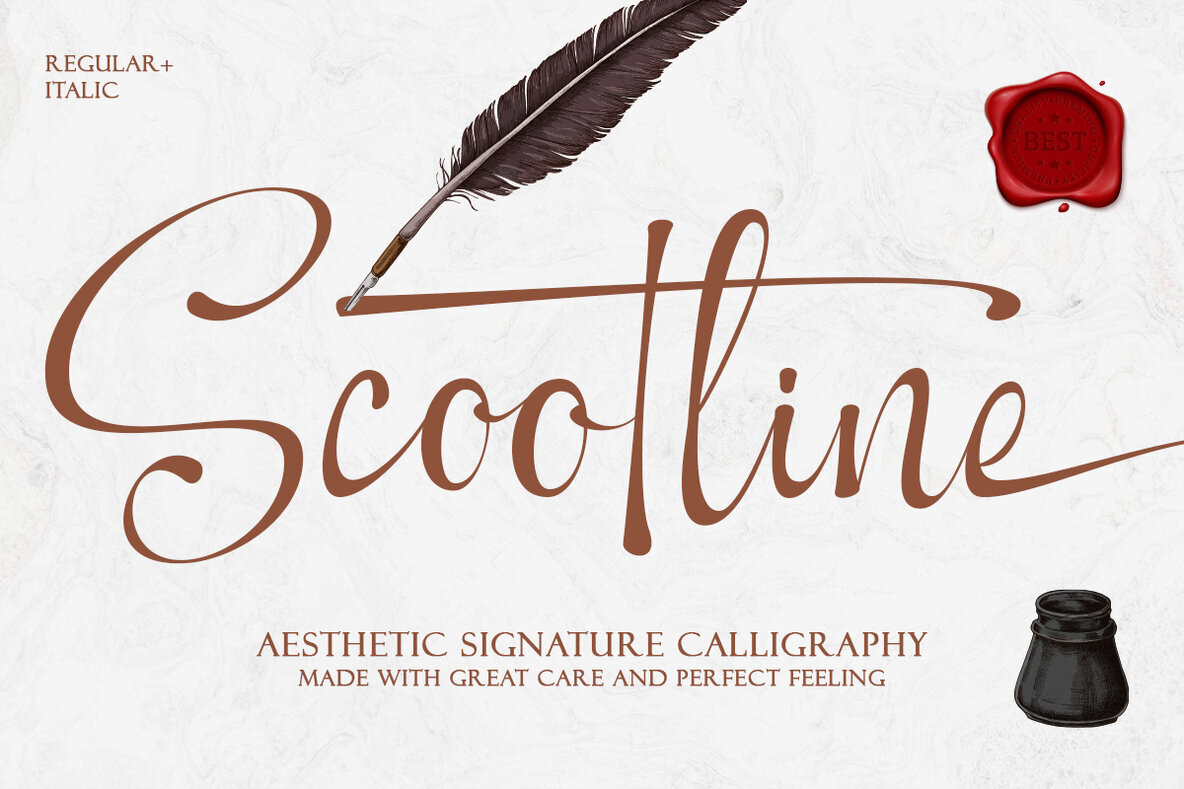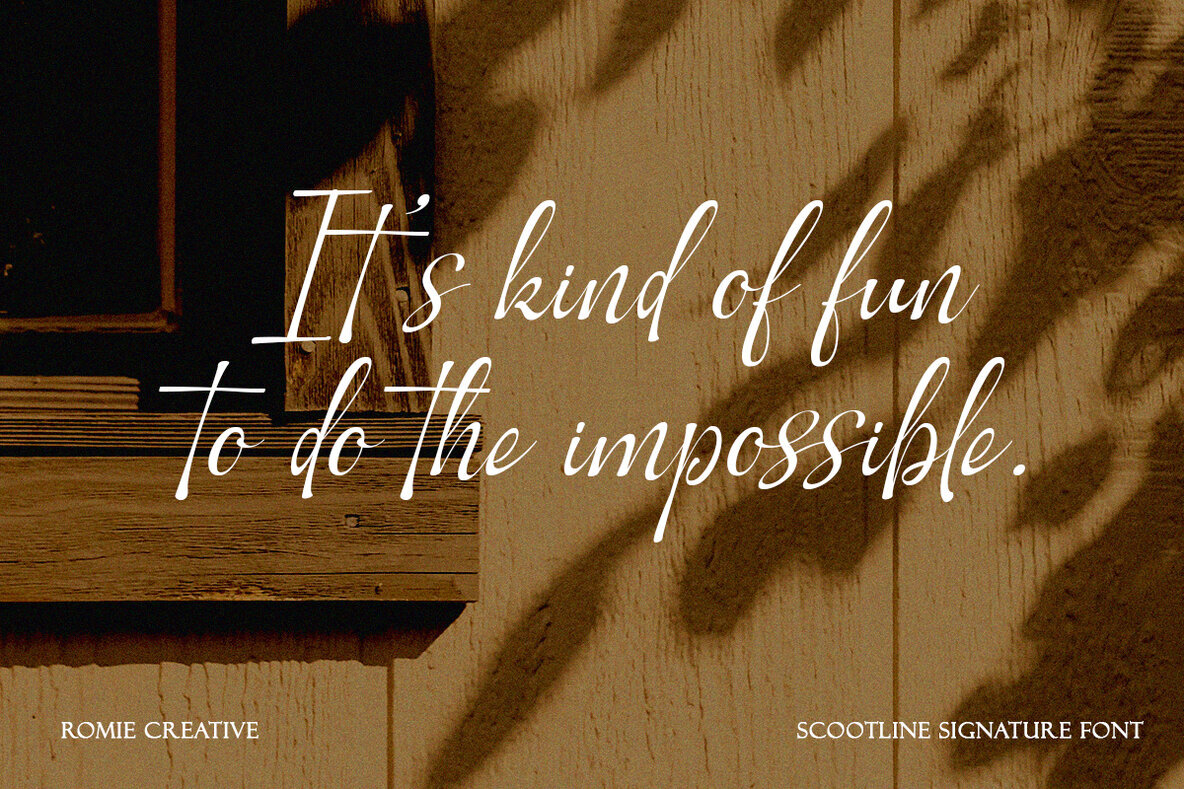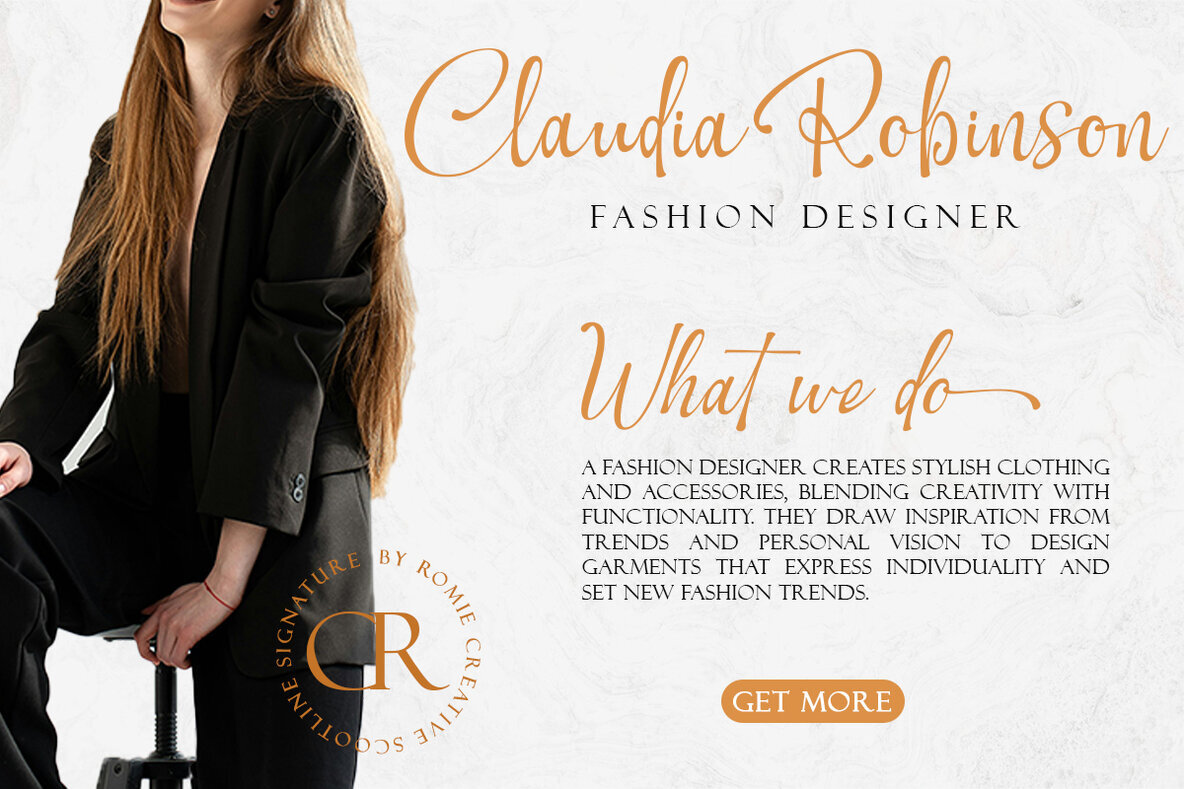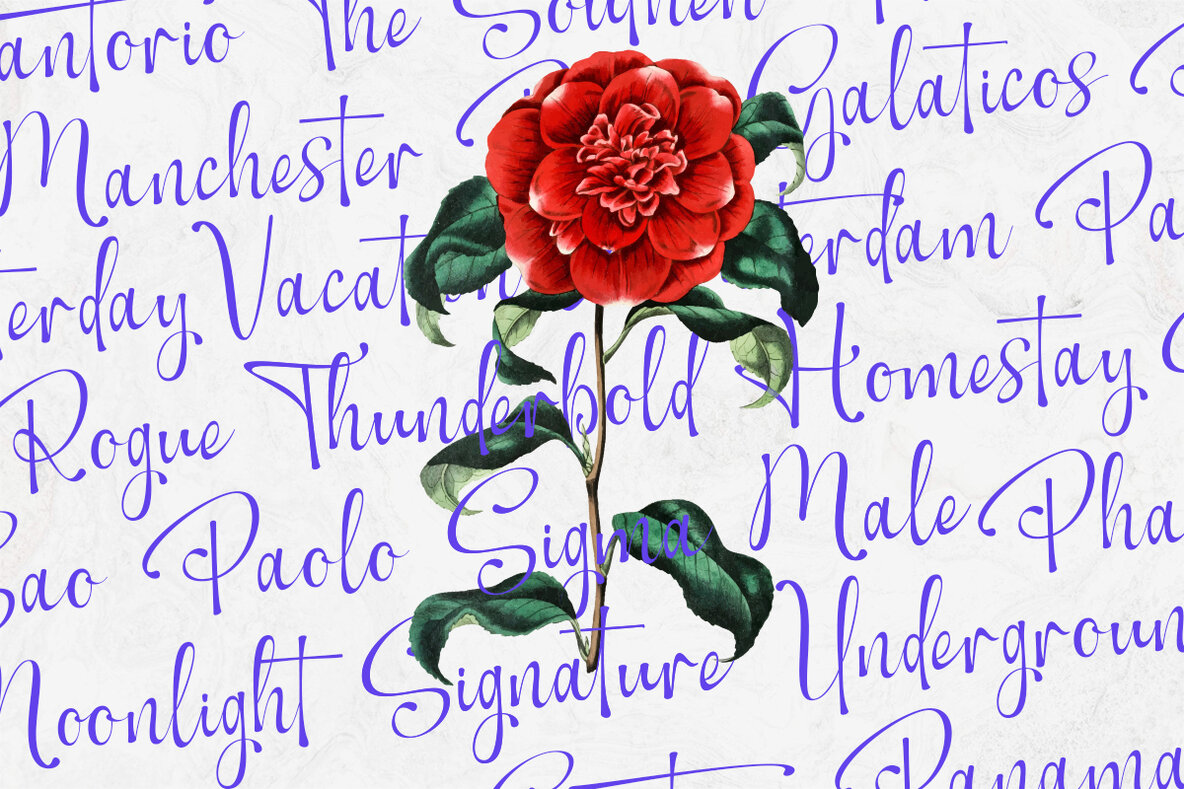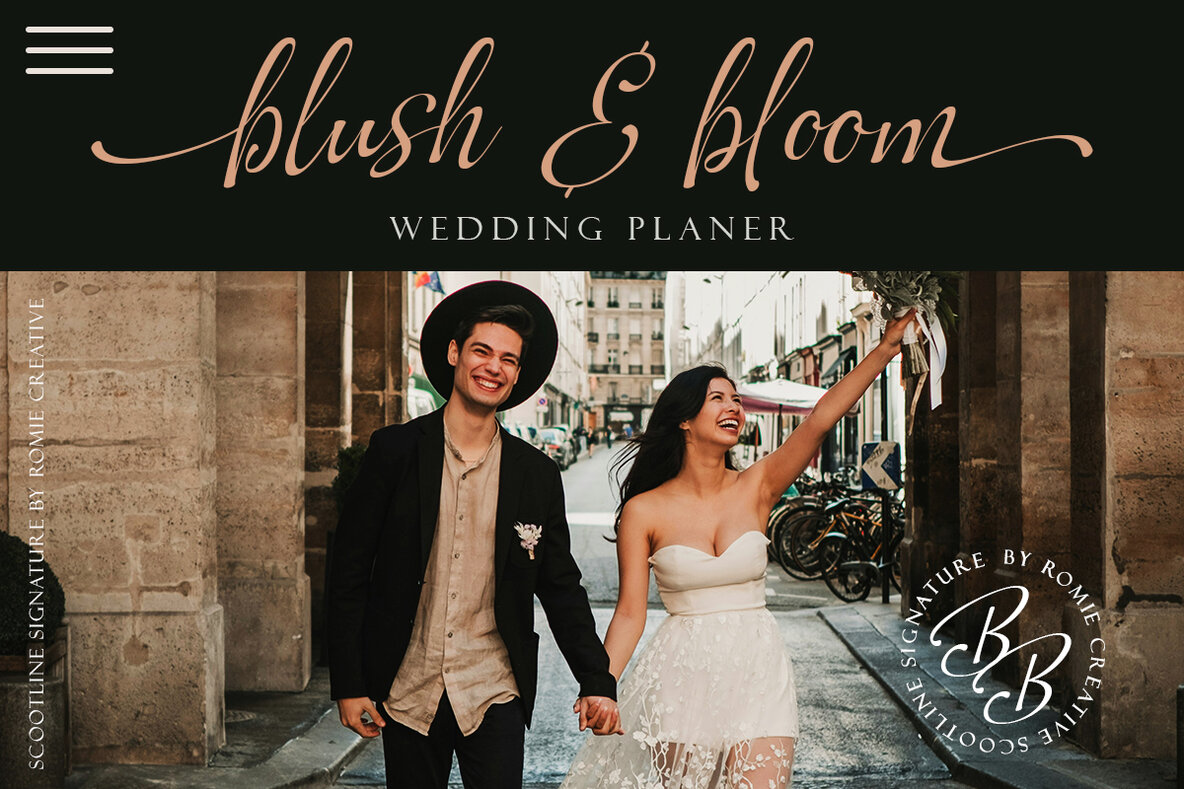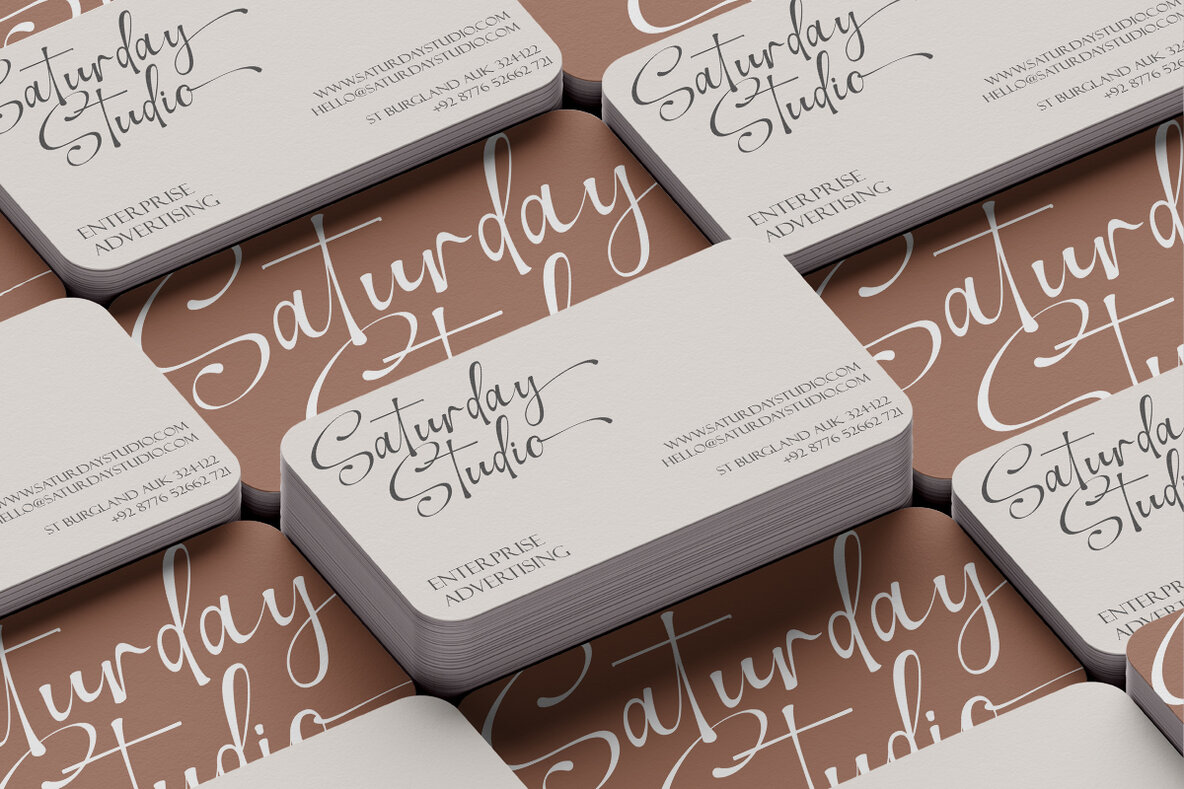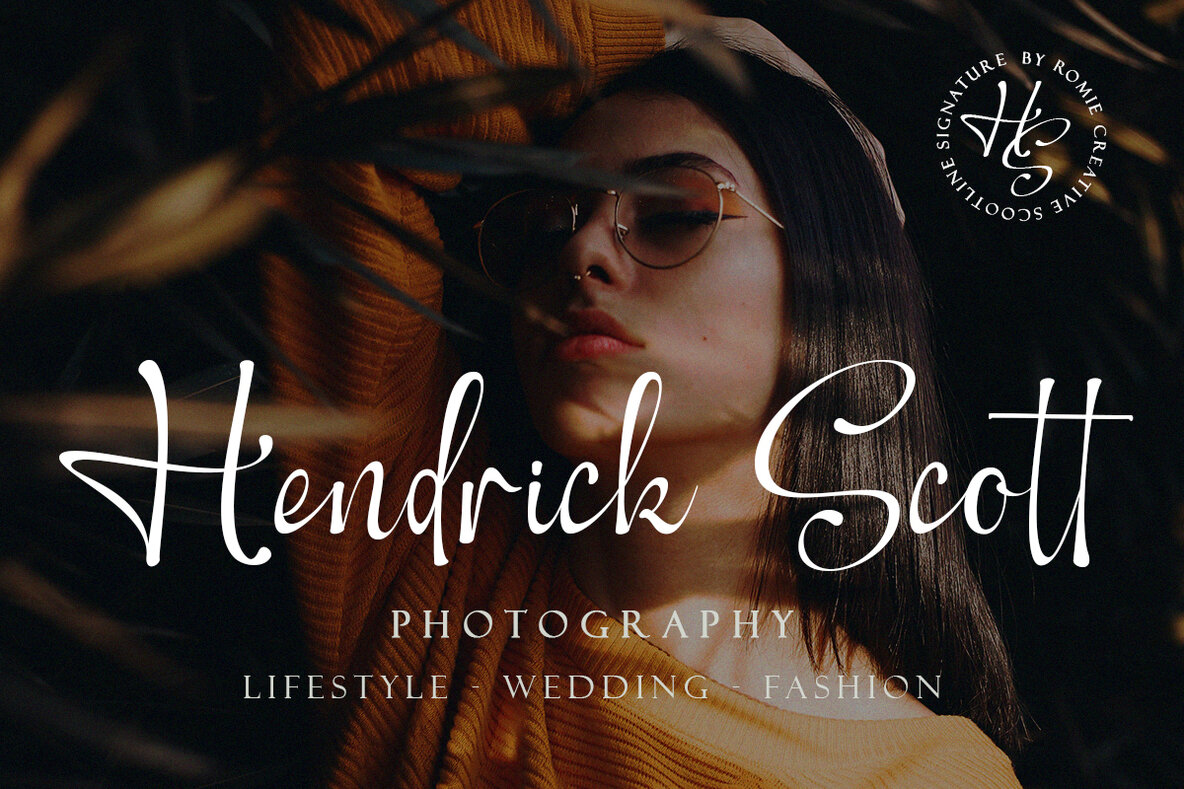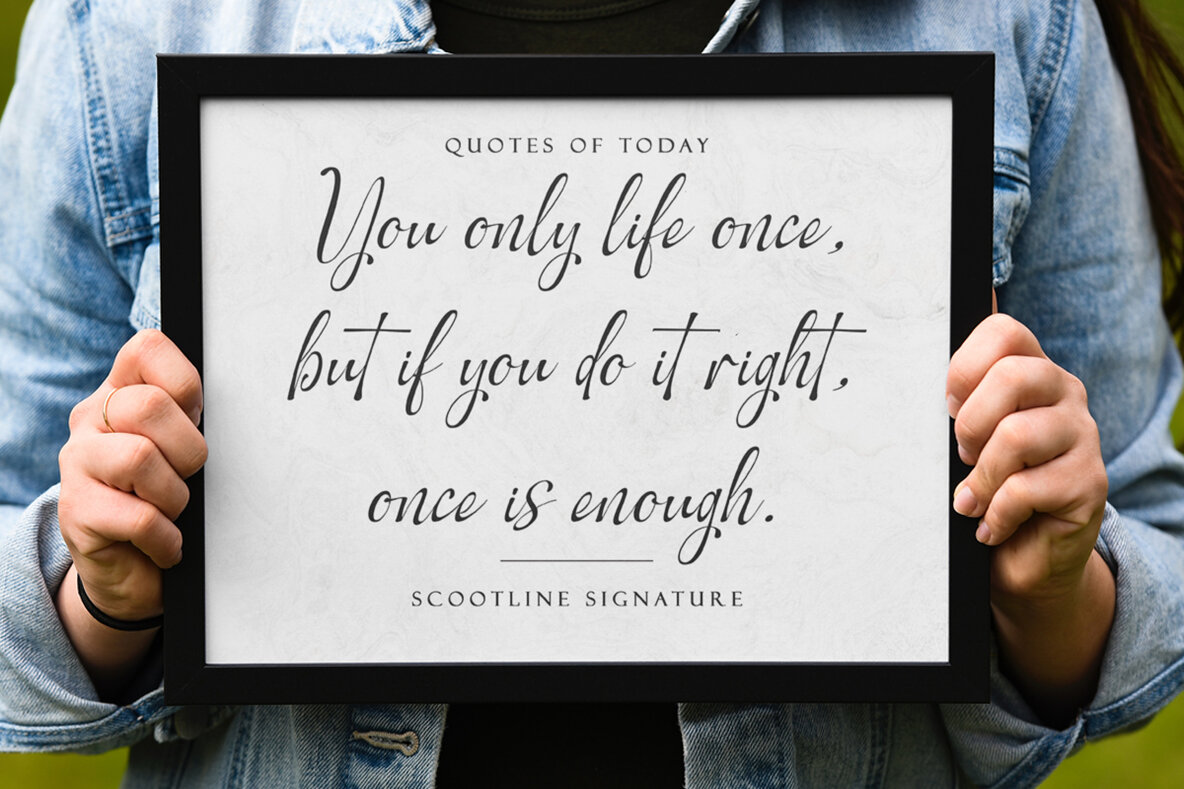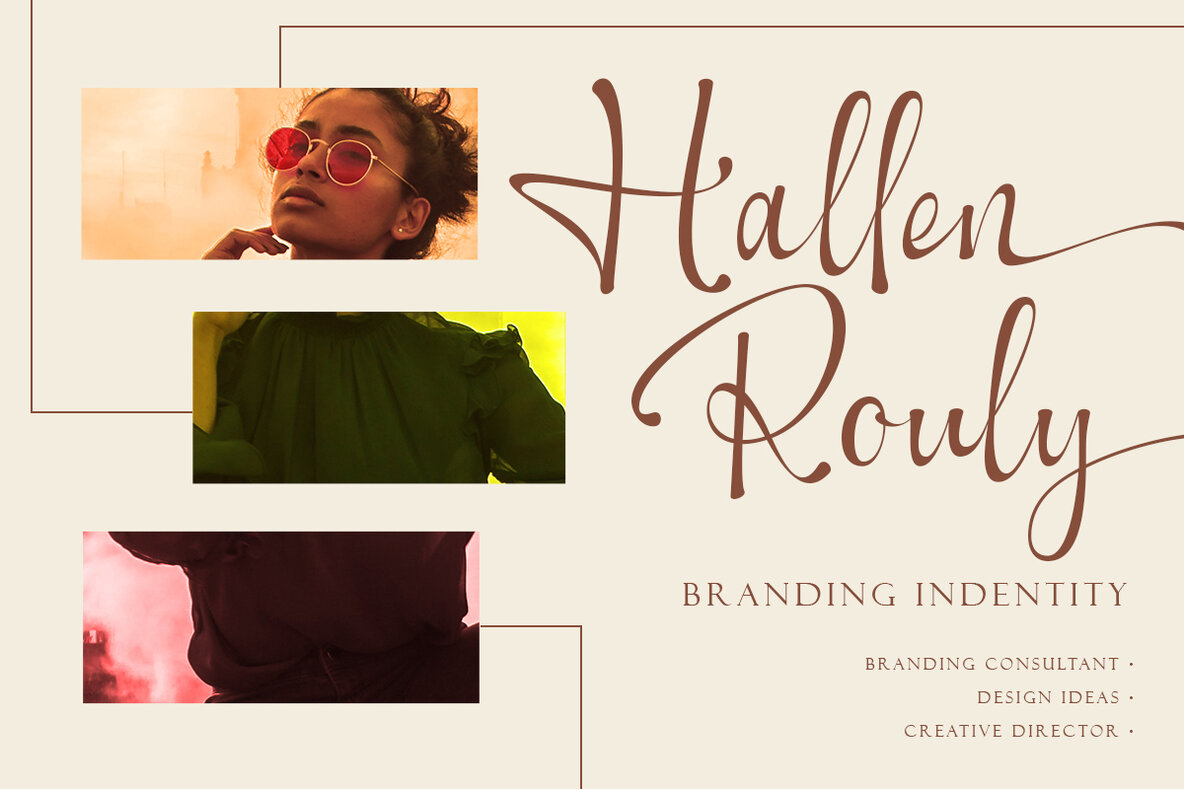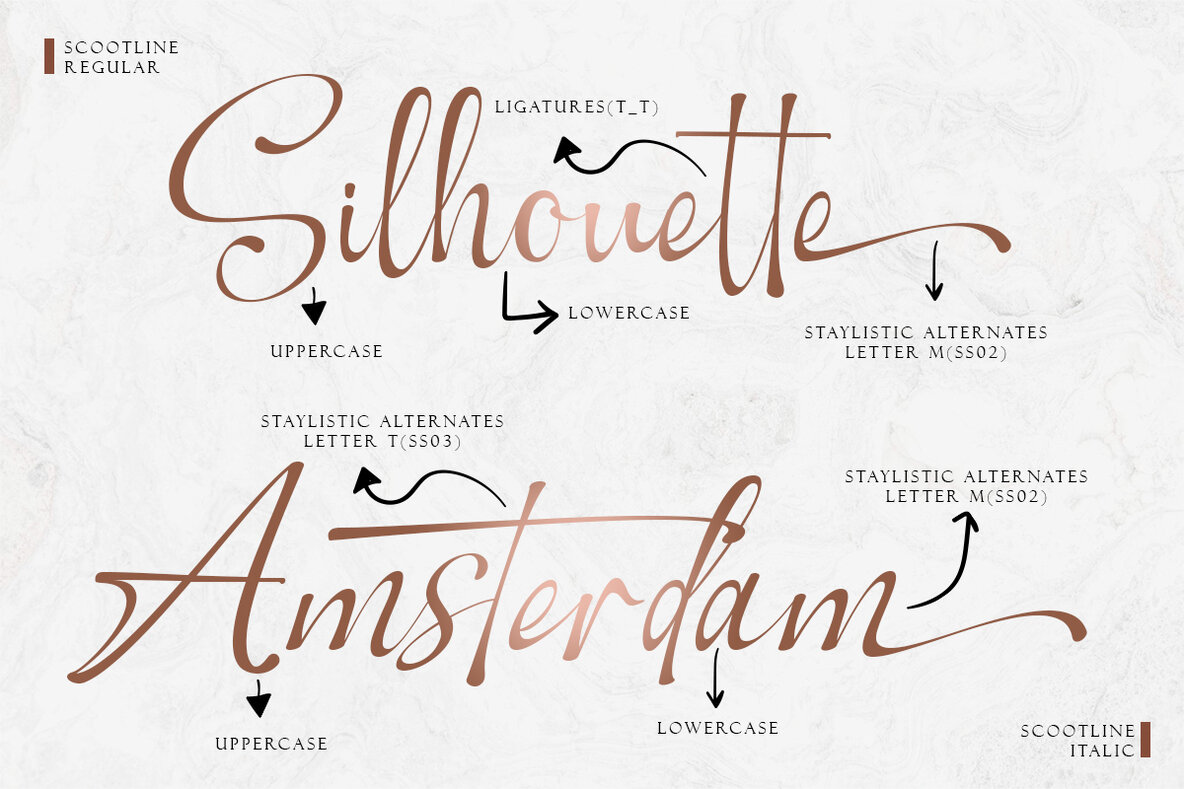
Scootline Signature Font
Embrace the charm of casual chic with Scootline Signature, a stylish modern calligraphy font perfect for a variety of creative projects. Ideal for branding, wedding invitations, cards, and even red wine labels, it adds a touch of elegance to any endeavor. This typeface comes with a full set of uppercase and lowercase letters, numerals, an extensive range of punctuation, and variations like ligatures for added flair. Scootline Signature: Modern Calligraphy Font
Exquisite Features